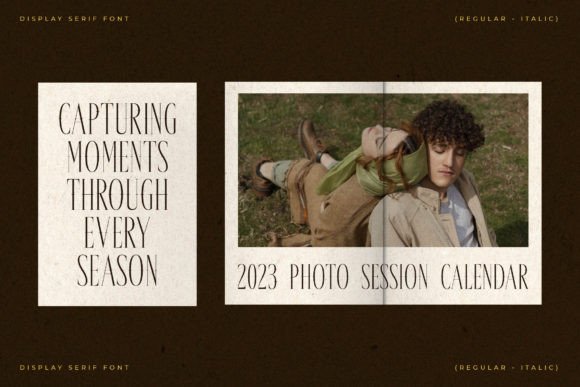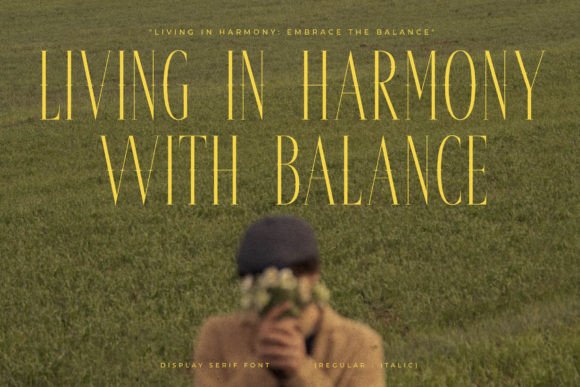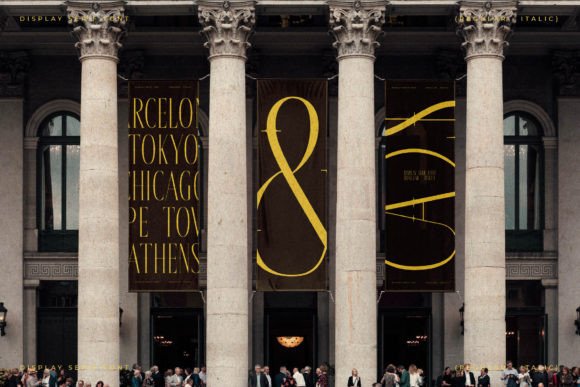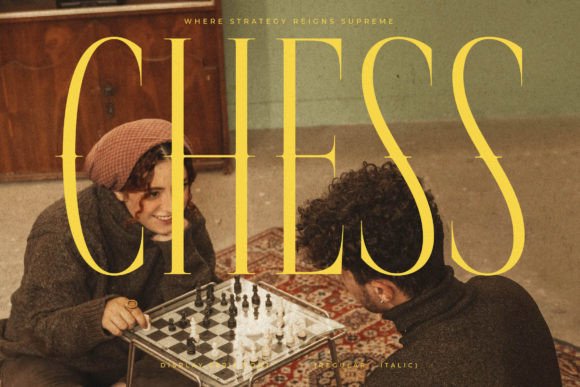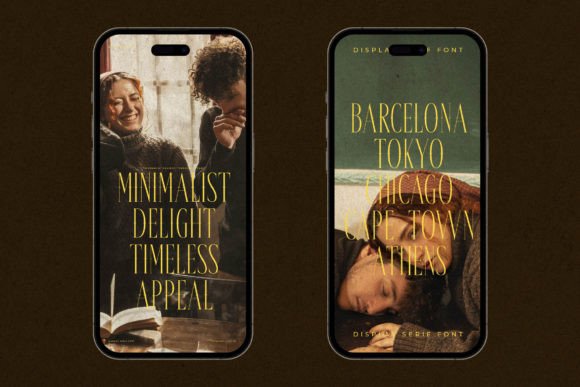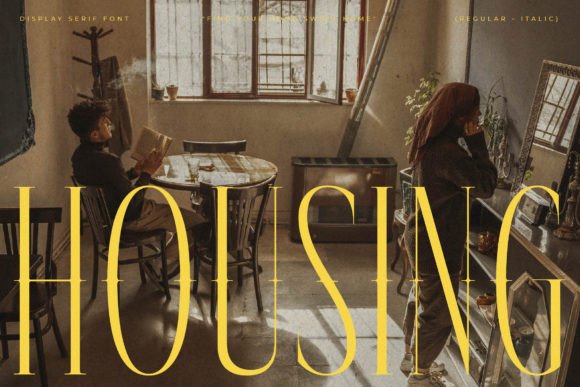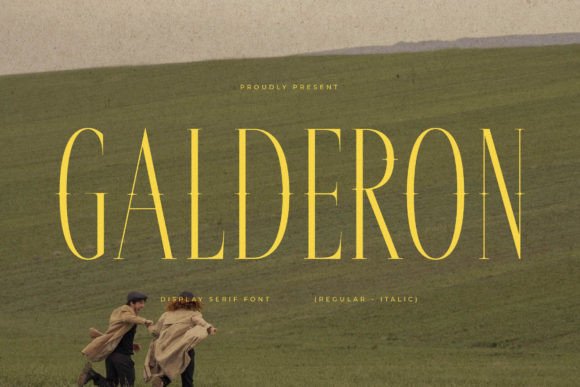
Introducing Galderon Font: A Timeless Serif Typeface for Elegant Designs
In the world of typography, a font can make all the difference in creating a lasting impression. For designers and crafters seeking a typeface that exudes elegance, sophistication, and modernity, look no further than Galderon Font. Proudly presented as a serif modern and classic typeface, Galderon boasts a unique style and contemporary look that sets it apart from other fonts.
What Makes Galderon Font Stand Out?
Galderon Font is a masterful blend of traditional serif elements and modern flair. Its distinctive character design makes it perfect for a wide range of applications, from luxurious logos and book or movie titles to fashion branding, magazines, and clothing designs. The font’s classic roots provide a sense of timelessness, while its modern twists inject a fresh, updated feel.
Key Features of Galderon Font
- Unique Style: Galderon’s design is characterized by its own unique style, setting it apart from more traditional serif fonts.
- Modern Look: Despite its classic roots, Galderon has a distinctly modern appearance, making it suitable for contemporary design projects.
- Elegant and Luxurious: The font’s sophisticated feel makes it ideal for luxury branding, high-end fashion, and elegant editorial designs.
- Versatile: Galderon can be used across various mediums, including logos, titles, magazines, clothing designs, and more.
Use Cases for Galderon Font
Galderon Font’s versatility is one of its most compelling attributes. Here are some of the many ways you can utilize this exceptional typeface:
- Elegant Logos: Create a lasting impression with a logo that embodies sophistication and luxury.
- Book or Movie Titles: Add a touch of elegance to your book covers or movie titles with Galderon’s classic yet modern aesthetic.
- Fashion Branding: Elevate your fashion brand with a font that exudes style and sophistication.
- Magazines and Editorial Design: Use Galderon to give your magazine or editorial content a refined, high-end look.
- Clothing Designs: Incorporate Galderon into your clothing designs for a stylish and modern appearance.
- Lettering and Quotes: Galderon’s clear, elegant lines make it perfect for lettering projects and showcasing quotes.
Why Choose Galderon Font?
In a sea of fonts, Galderon stands out for its unique blend of classic and modern elements. Here are a few reasons why designers and crafters should consider Galderon for their next project:
- Timeless Appeal: Galderon’s design ensures it will remain relevant and stylish for years to come.
- Versatility: The font’s adaptability makes it suitable for a wide range of applications.
- Elegance: Galderon brings an unmatched level of sophistication to any design.
Galderon Font is a remarkable serif typeface that brings a unique blend of modernity and classic elegance to the world of typography. Its distinctive style, versatile nature, and luxurious feel make it an ideal choice for designers and crafters looking to create elegant and sophisticated designs. Whether you’re working on a luxury logo, a fashion brand, or an editorial project, Galderon Font is sure to elevate your work to new heights.
Discover the possibilities with Galderon Font and experience the difference that a well-crafted typeface can make in your designs.